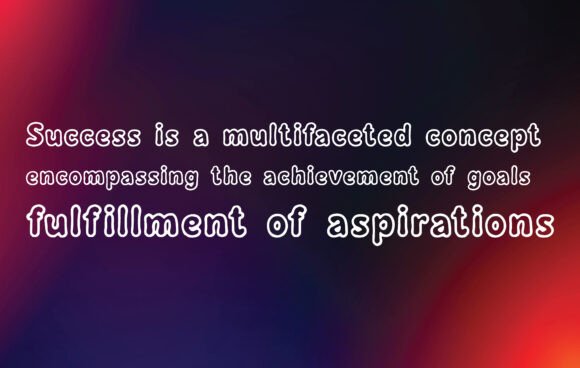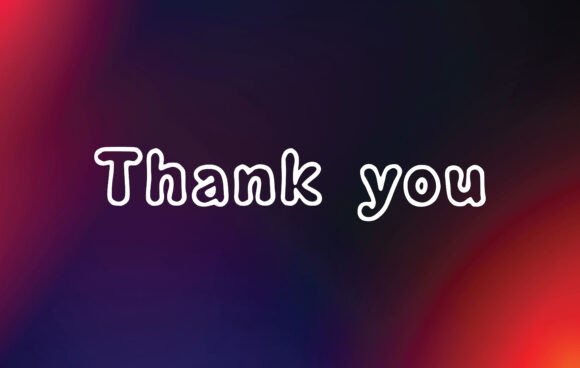
Introduction to Kinkajou Font
Kinkajou is a lovely and beautiful handwritten font.
Key Features of Kinkajou Font
Why Choose Kinkajou Font?
Kinkajou Font offers exceptional quality and versatility, making it a valuable addition to your design toolkit. Whether you’re creating for personal projects or commercial use, Kinkajou Font delivers professional results.